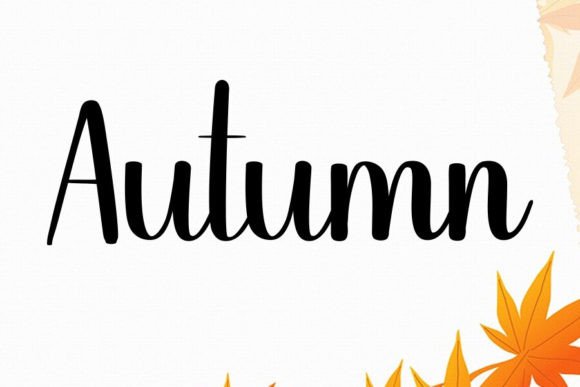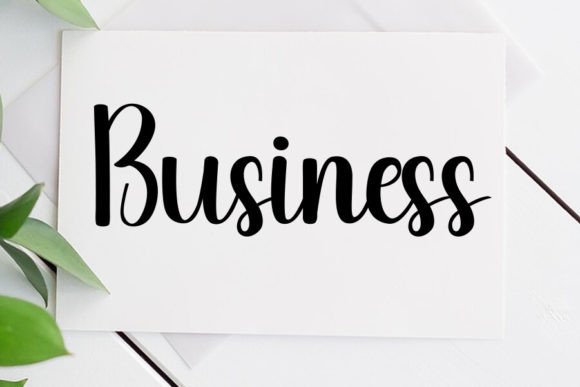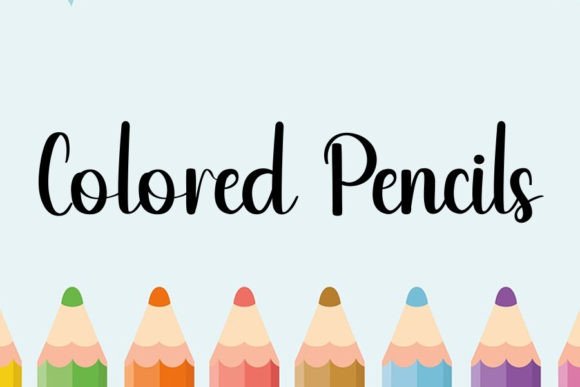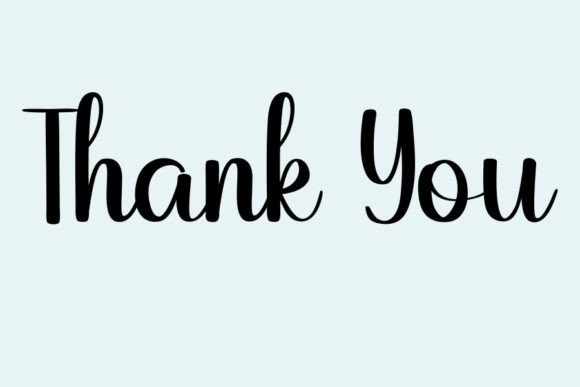
Introducing Blanket Font: The Ultimate Handwritten Companion for Designers and Crafters
Are you tired of using the same old fonts for your designs and crafts? Look no further! Blanket Font is here to revolutionize the way you approach typography. This fun and friendly handwritten font is perfect for a wide range of applications, from digital design and presentations to crafting and making greeting cards. In this article, we’ll dive into the world of Blanket Font and explore its features, benefits, and uses.
Handwritten fonts have a unique charm that can add a personal touch to any design. They evoke a sense of warmth, friendliness, and approachability, making them perfect for projects that require a human touch. Blanket Font is no exception. Its handwritten style is carefully crafted to bring a sense of playfulness and whimsy to your designs, making it an excellent choice for a variety of projects.
What Makes Blanket Font Special?
So, what sets Blanket Font apart from other fonts? Here are a few features that make it a standout:
- Fun and Friendly: Blanket Font is designed to be fun and friendly, making it perfect for projects that require a lighthearted touch.
- Handwritten Style: Its handwritten style gives it a unique and personal feel that can add a touch of warmth to any design.
- Versatile: Blanket Font is versatile and can be used for a wide range of applications, from digital design to crafting and making greeting cards.
- Easy to Read: Despite its playful style, Blanket Font is easy to read, making it perfect for projects that require a clear and concise message.
Uses for Blanket Font
Blanket Font is a versatile font that can be used for a wide range of projects. Here are a few ideas to get you started:
- Crafts: Use Blanket Font to add a personal touch to your crafts, such as scrapbooking, card making, and DIY projects.
- Digital Design: Blanket Font is perfect for digital design projects, such as social media graphics, blog posts, and website headers.
- Presentations: Add a touch of personality to your presentations with Blanket Font, making them more engaging and fun.
- Greeting Cards: Use Blanket Font to create personalized greeting cards for special occasions, such as birthdays, holidays, and weddings.
Tips for Using Blanket Font
Here are a few tips for using Blanket Font effectively:
- Pair it with Other Fonts: Experiment with pairing Blanket Font with other fonts to create a unique and interesting contrast.
- Use it for Headings: Use Blanket Font for headings and titles to add a touch of personality to your designs.
- Experiment with Colors: Try using Blanket Font with different colors to add a pop of color to your designs.
In conclusion, Blanket Font is a fun and friendly handwritten font that is perfect for designers and crafters. Its versatility, readability, and charm make it an excellent choice for a wide range of projects. Whether you’re using it for crafts, digital design, presentations, or making greeting cards, Blanket Font has the potential to become your favorite go-to font. So why not give it a try and see the difference it can make in your designs?